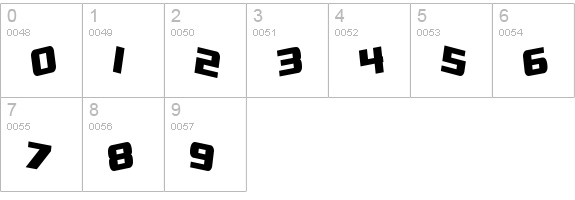
SF Zero Gravity Condensed Bold Font Details
SF Zero Gravity Condensed Bold is a strong, high-contrast, condensed-width variant in the SF typeface family \xE2\x80\x94 well suited to headlines, attention-grabbing titles, and strong calls-to-action.
SF Zero Gravity Condensed Bold is a captivating and modern typeface that effortlessly combines elegance with a touch of futuristic appeal. This font is the epitome of sleekness and sophistication, making it the perfect choice for projects that require a contemporary and cutting-edge look. With its condensed bold design, SF Zero Gravity demands attention and commands a strong presence on any medium. Whether it's used for headlines, branding, or any other creative endeavor, this font exudes confidence and professionalism. One of the most remarkable aspects of SF Zero Gravity Condensed Bold is that it is freely available to download at FontsMarket.com. This means that designers, creatives, and typographers alike can access this exceptional font without any hassle or cost. The ability to freely obtain such a high-quality and visually striking typeface is a true testament to the generosity of the font's creators. SF Zero Gravity Condensed Bold is not only visually stunning but also highly versatile. Its clean lines and well-defined letterforms make it legible at various sizes, ensuring readability across different mediums. Whether it's displayed on a large billboard or used in a small caption, this font remains effortlessly readable and visually appealing. Furthermore, SF Zero Gravity Condensed Bold boasts an extensive character set that includes uppercase and lowercase letters, numerals, punctuation marks, and a wide range of special characters. This comprehensive collection allows designers to fully express their creative vision and create stunning typographic compositions without any limitations. In conclusion, SF Zero Gravity Condensed Bold is a captivating and modern typeface that is freely available to download at FontsMarket.com. Its condensed bold design, versatility, and extensive character set make it a go-to choice for designers seeking a contemporary and sleek aesthetic. With SF Zero Gravity Condensed Bold, your projects will soar to new heights, effortlessly capturing attention and leaving a lasting impression.